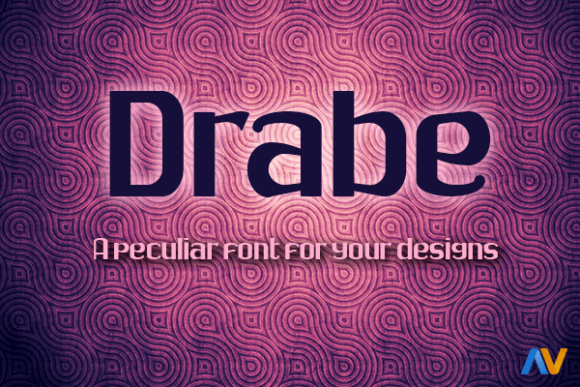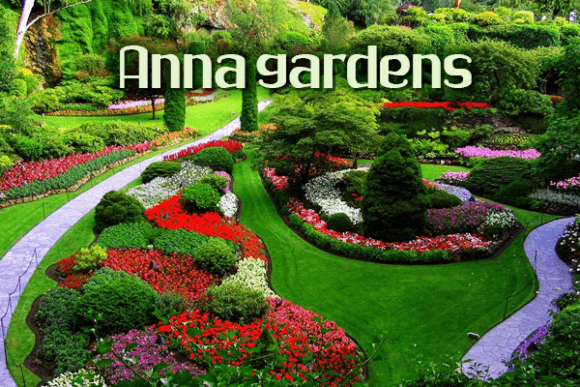
Drabe Font: A Unique Sans Serif for Playful Logo Design & Branding
About the Drabe Font
Welcome to the world of Drabe Font, a typeface that will inspire your next great project. Presenting Drabe, an exceptional font perfected by renowned designer, Alberto Villanueva. Striking a balance between elegance and quirkiness, Drabe is crafted as a sans serif font, perfect for informal and casual contexts. Its distinctive style showcases a peculiar design, setting your creations apart. Trust in the creative mind of Alberto Villanueva as his masterpiece, Drabe, brings unique energy and dynamic immersion to any composition.
Drabe’s quirky elegance makes it ideal for headlines, short-form content, and branding applications where a playful yet sophisticated aesthetic is desired. It works exceptionally well in logos, posters, and short social media captions. However, its distinctive character and slightly irregular letterforms make it less suitable for large blocks of body text or UI elements where readability is paramount.
For optimal pairings, consider complementing Drabe’s energy with a neutral sans-serif like Lato for body copy, or a classic serif such as Garamond for a touch of traditional refinement. A geometric sans-serif, like Futura, could also create a strong contrast, emphasizing Drabe’s unique forms.
Drabe’s overall personality is best described as bold and quirky, yet refined. Brands targeting a younger, modern, and creative audience, such as fashion labels, artisanal food companies, or entertainment ventures, will find Drabe a highly effective choice.
Drabe Font Usage Examples
Drabe Font Example